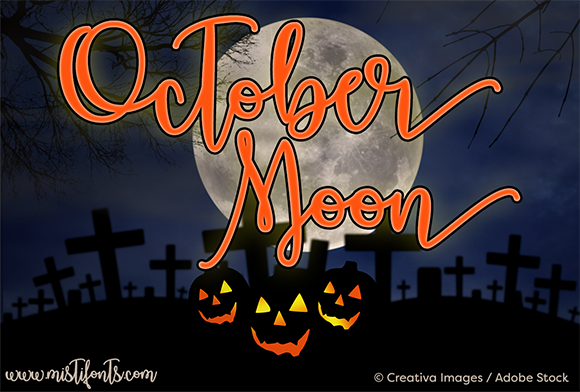
HomeScript FontsOctober Moon Font Script Fonts October Moon Font FacebookXPinterestWhatsApp About October Moon Font October Moon is a magical calligraphy font that is perfect for your design and craft proejcts! DOWNLOAD NOW People also explored Lovila Font Tropical Trail Font Handwriting Font Maziglow Font Majblomma Font Little Sophie Font Bringestone Font Mistigralley Font Wonderful Birthday Font 274 0 TagsOctober Moon Font Previous articleSeñorita FontNext articleAlva Romeo Font LEAVE A REPLY Cancel reply Comment: Please enter your comment! Name:* Please enter your name here Email:* You have entered an incorrect email address! Please enter your email address here Website: Save my name, email, and website in this browser for the next time I comment. Personal Use Free Gila Personal Use Free Read more about this font Forturn Personal Use Free Read more about this font Roland Personal Use Free Read more about this font Love Heart Personal Use Free Read more about this font BLOG Exploring Font Trends Shaping Communication in the Digital Era Fonts, like all design elements, are subject to trends. They play a crucial role in communicating a brand's personality,... Using Fonts in Digital Marketing: Tips to Strengthen Your Brand Identity Top 7 Google Fonts Alternatives for Faster and Privacy-Friendly Web Design (2025) To increase your work productivity, choose the most readable fonts.